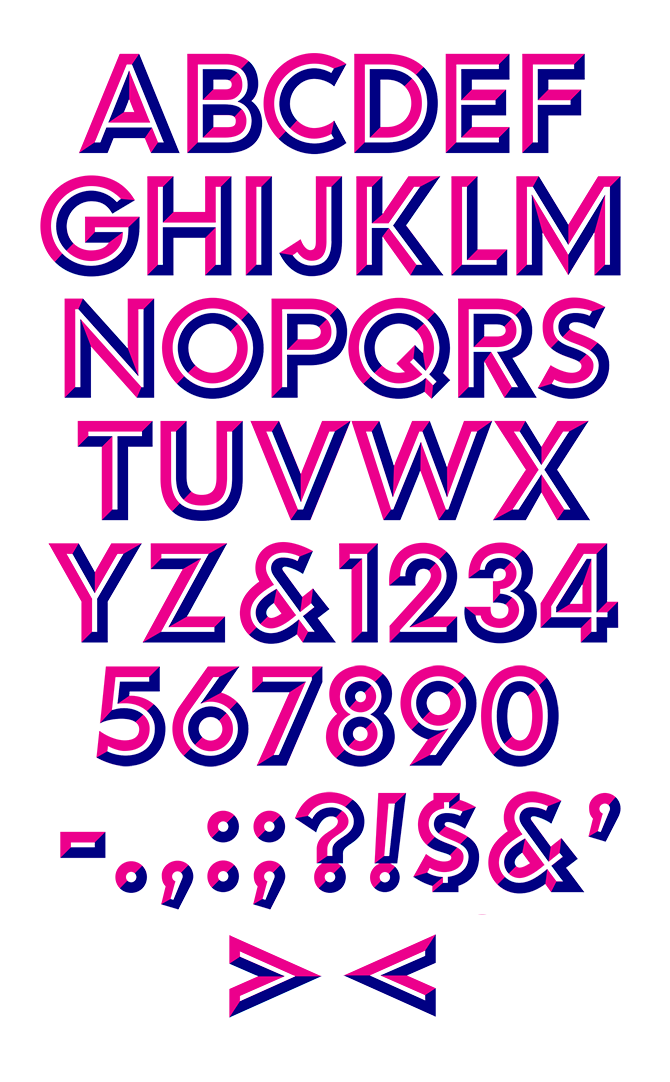
Virgin Marquee
Marquee is an original two-color font designed by James Grieshaber of Virgin Wood Type. This font is a new chromatic based on modernist Gothic type designs. This display font contains uppercase and figures only.